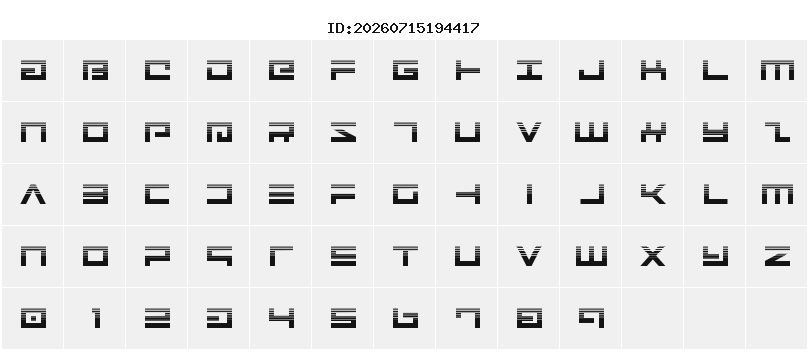
Avenger Haltone Preview
About Avenger Haltone.ttf
Avenger Haltone.ttf is a modern, elegant sans-serif font designed for ultimate readability and visual harmony. Perfect for branding, headlines, web design, and print materials.